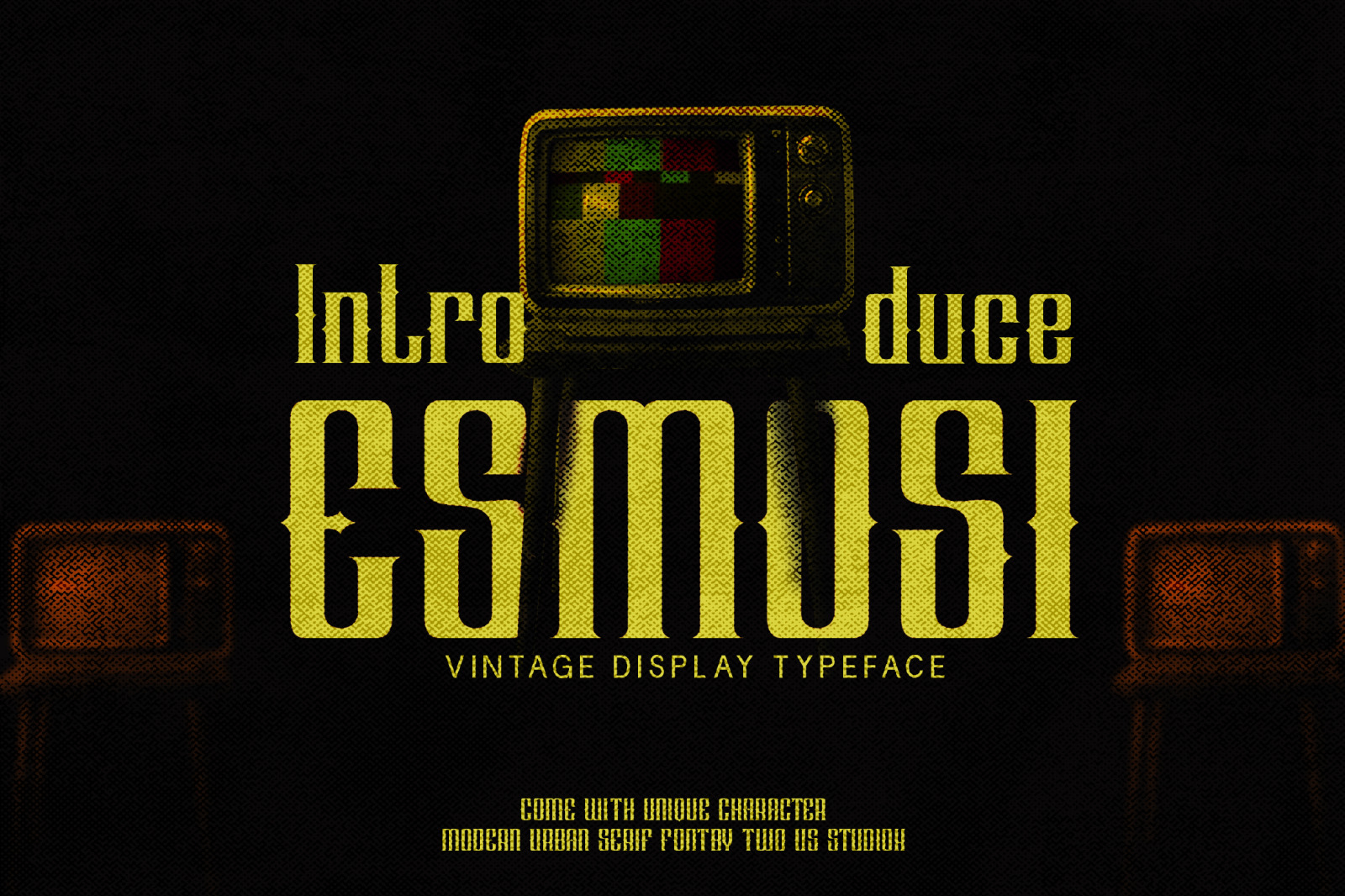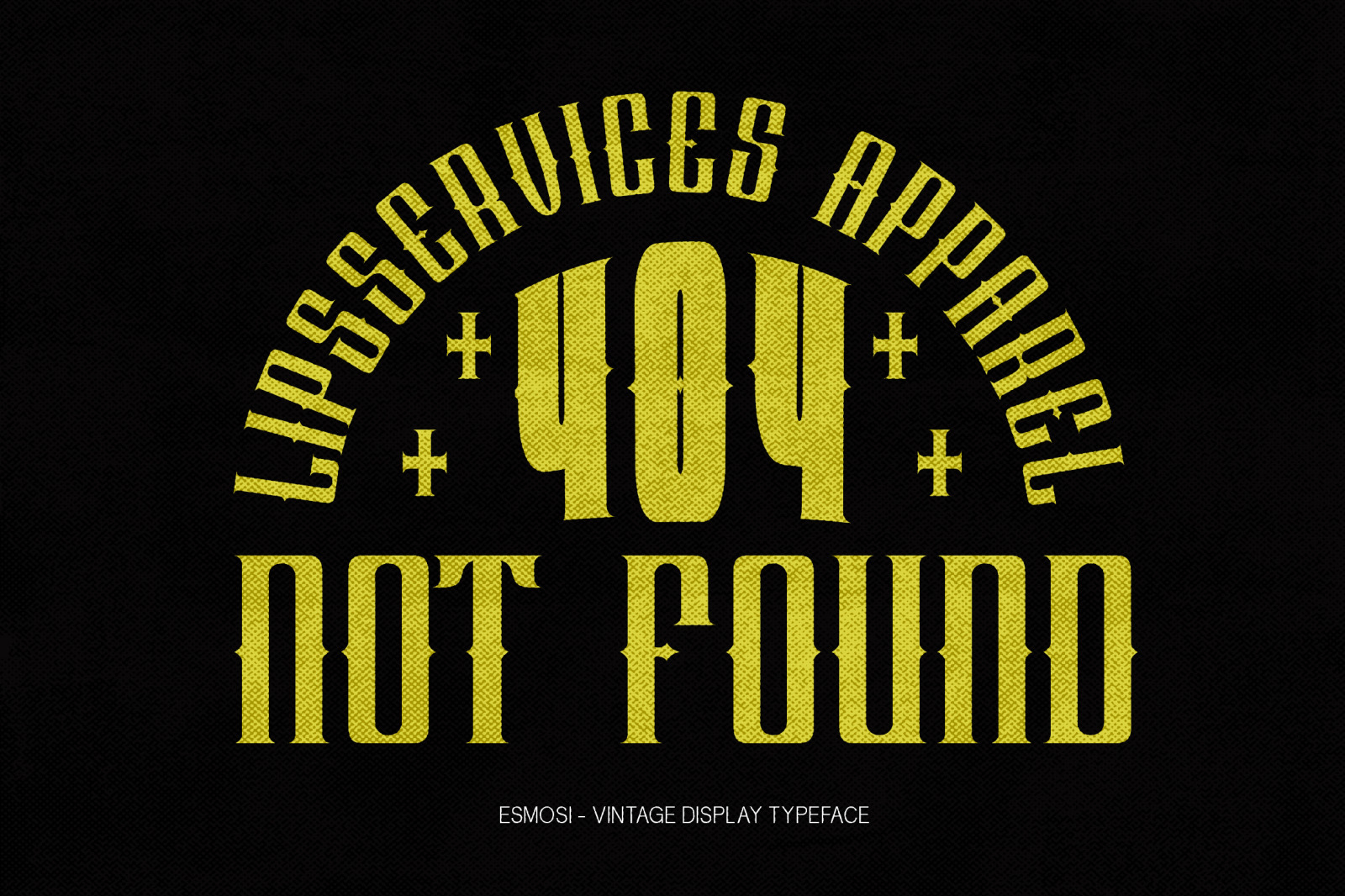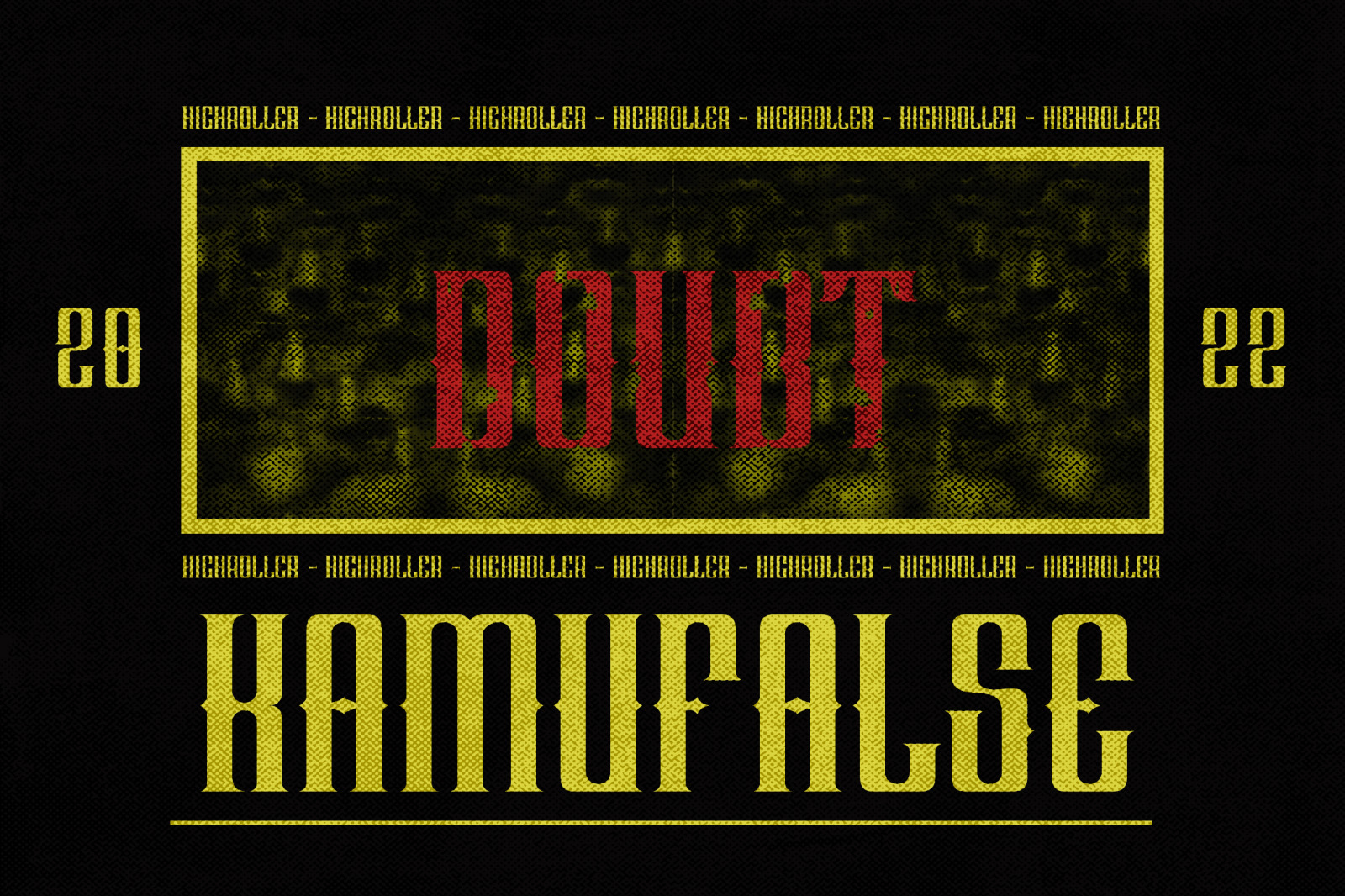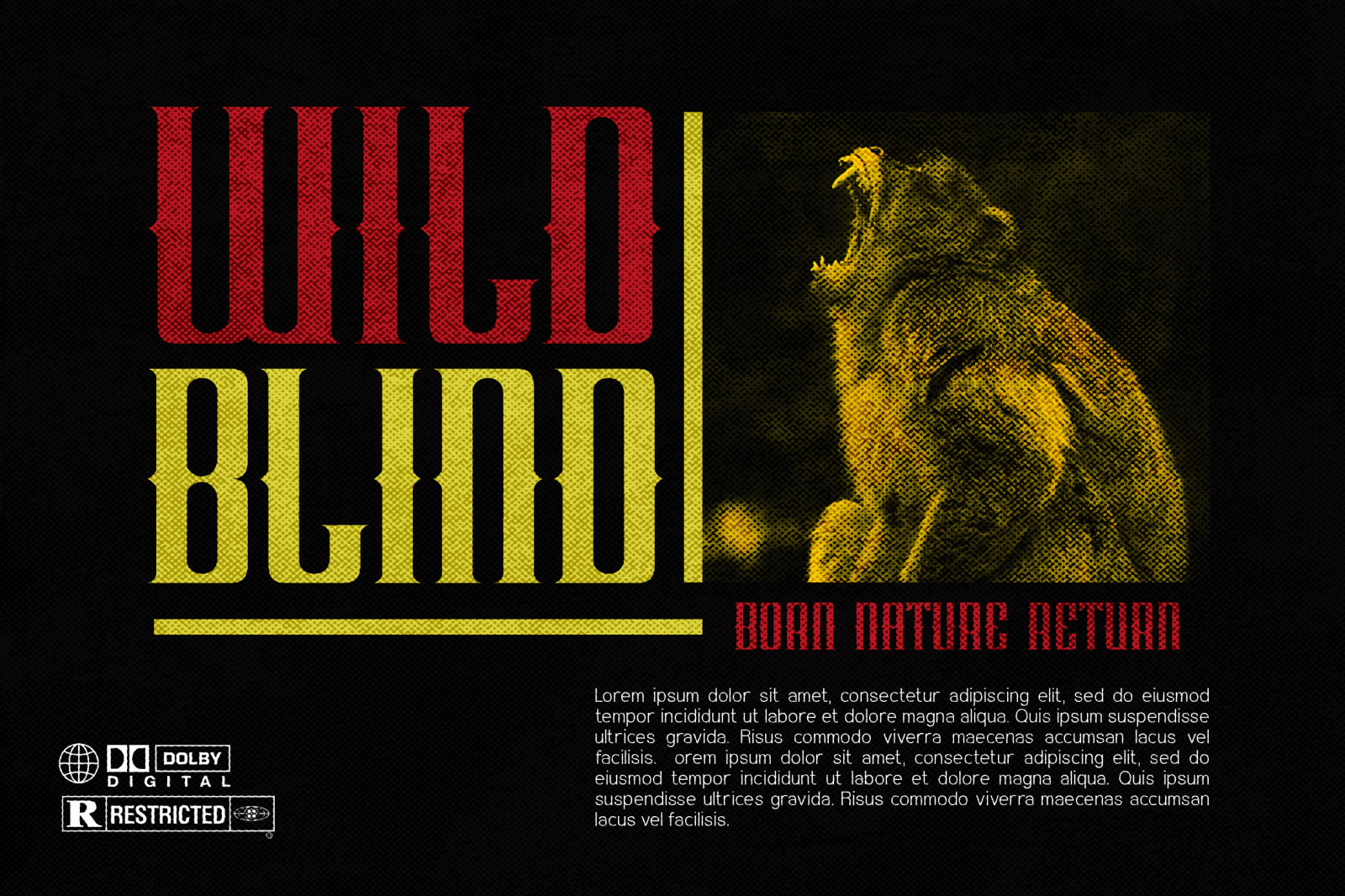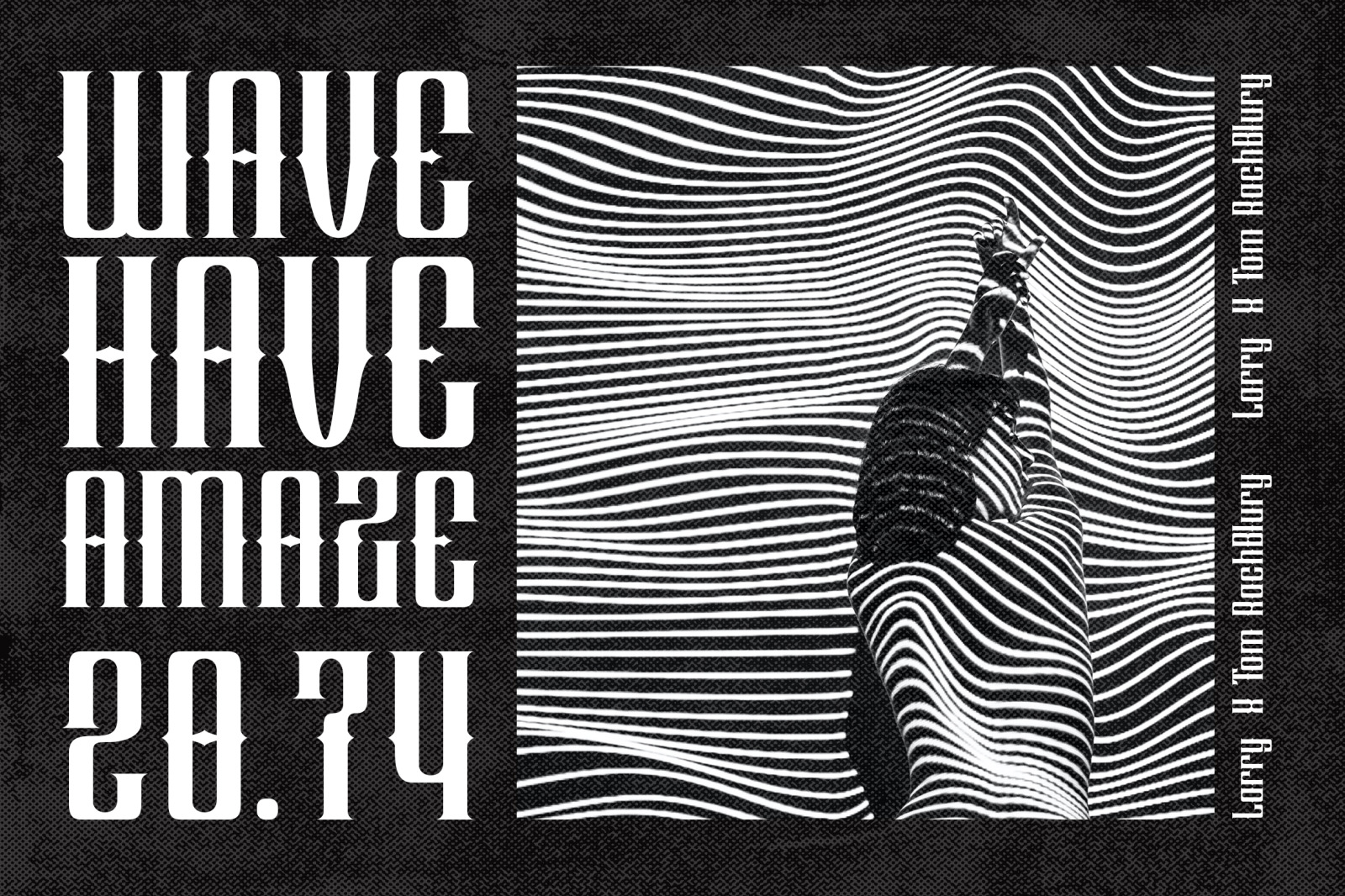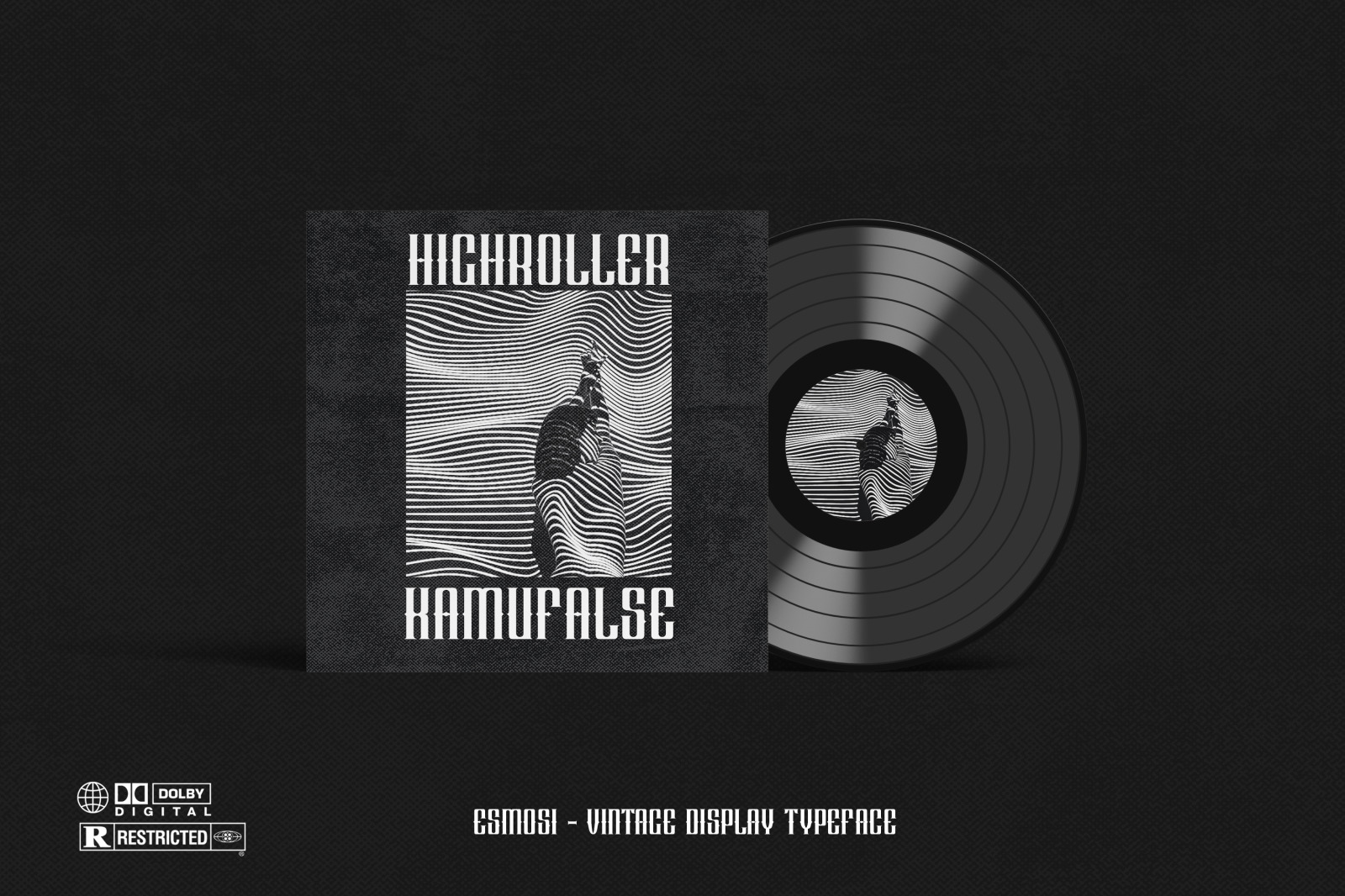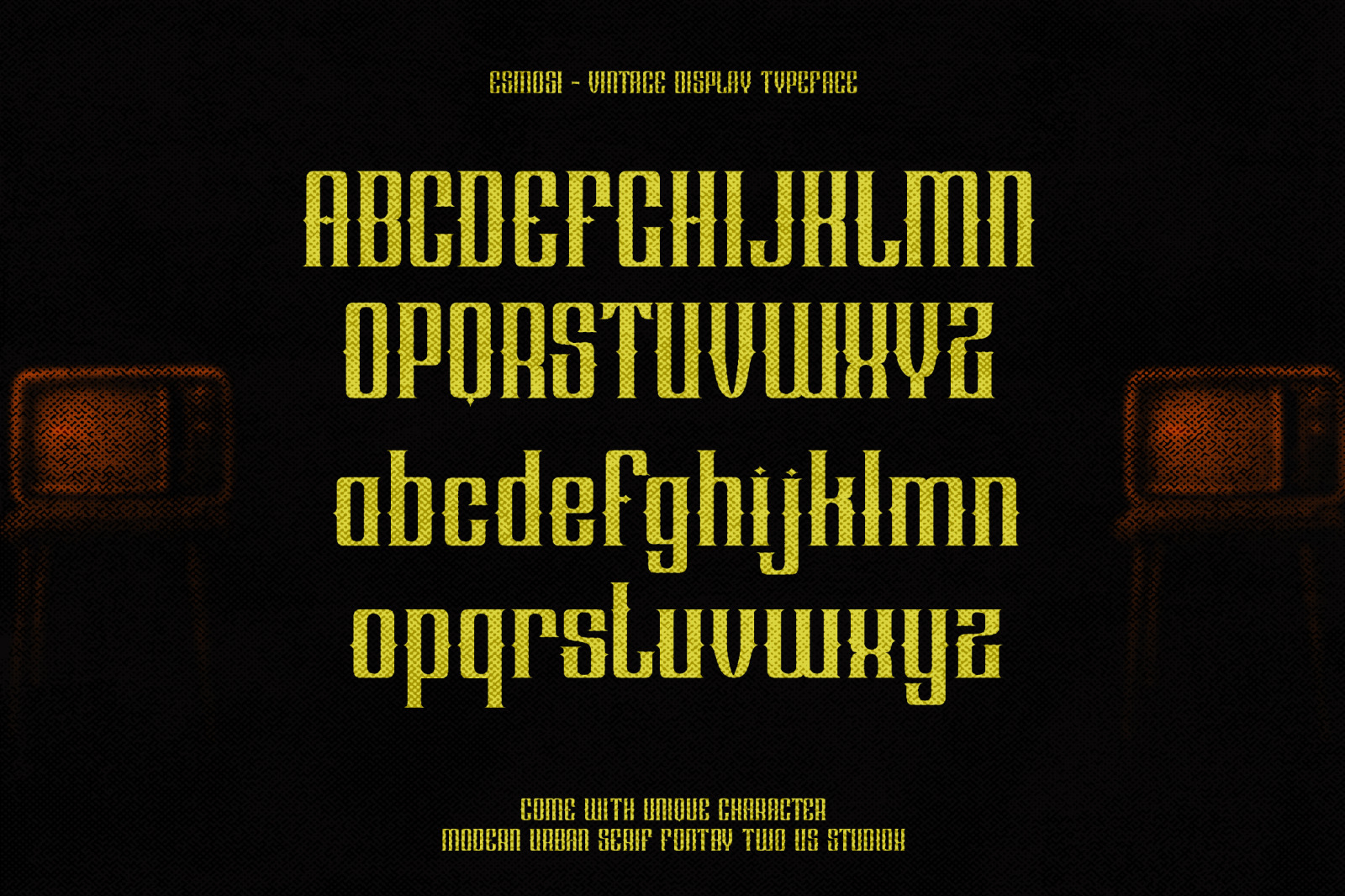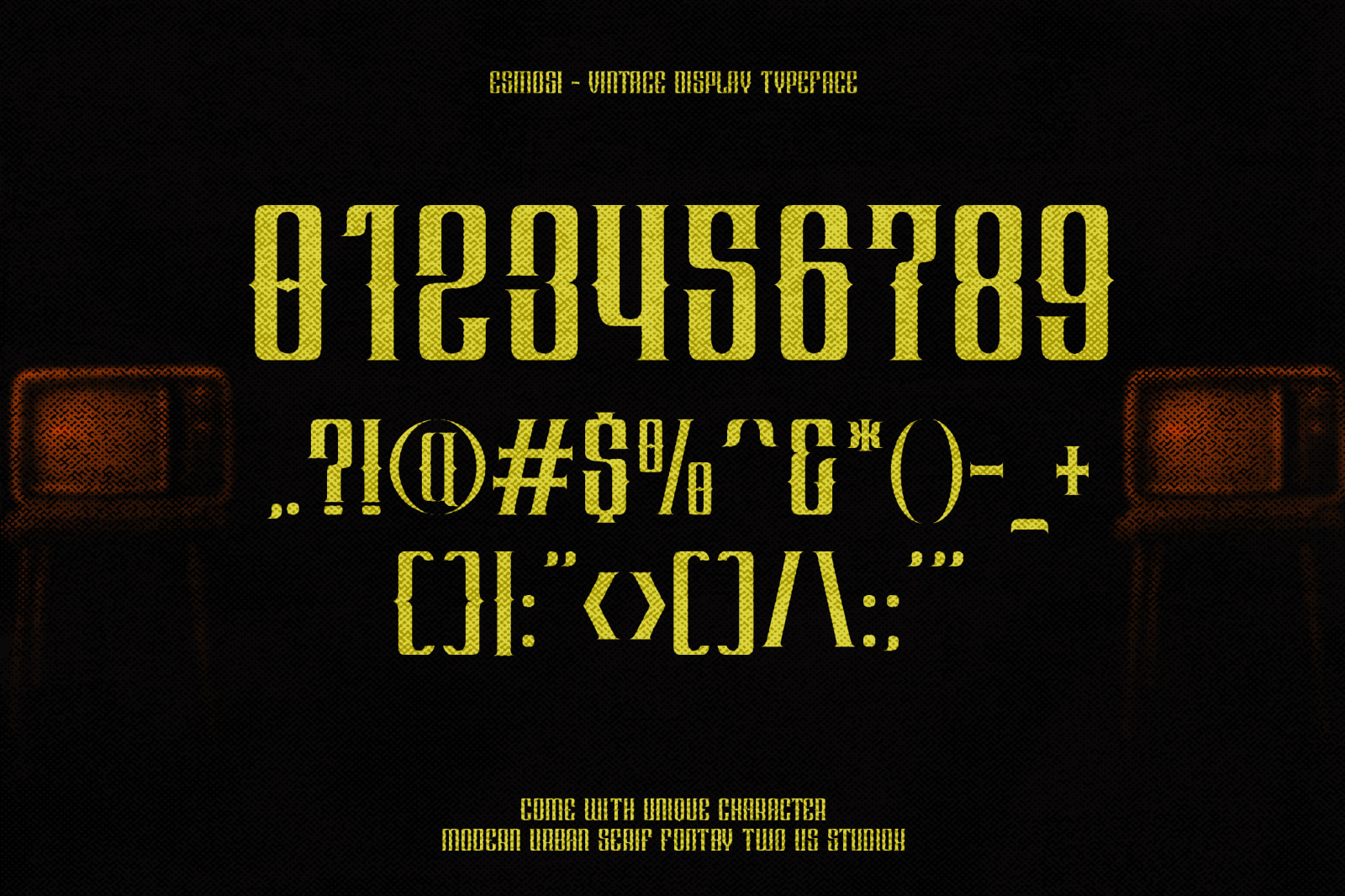
ESMOSI - VINTAGE DISPLAY TYPEFACE
Esmosi is a retro and western looking display font. This bold, unique and vintage font can easily become your favorite. It can be used for books, magazine covers, social media posts, invitations, and so much more!